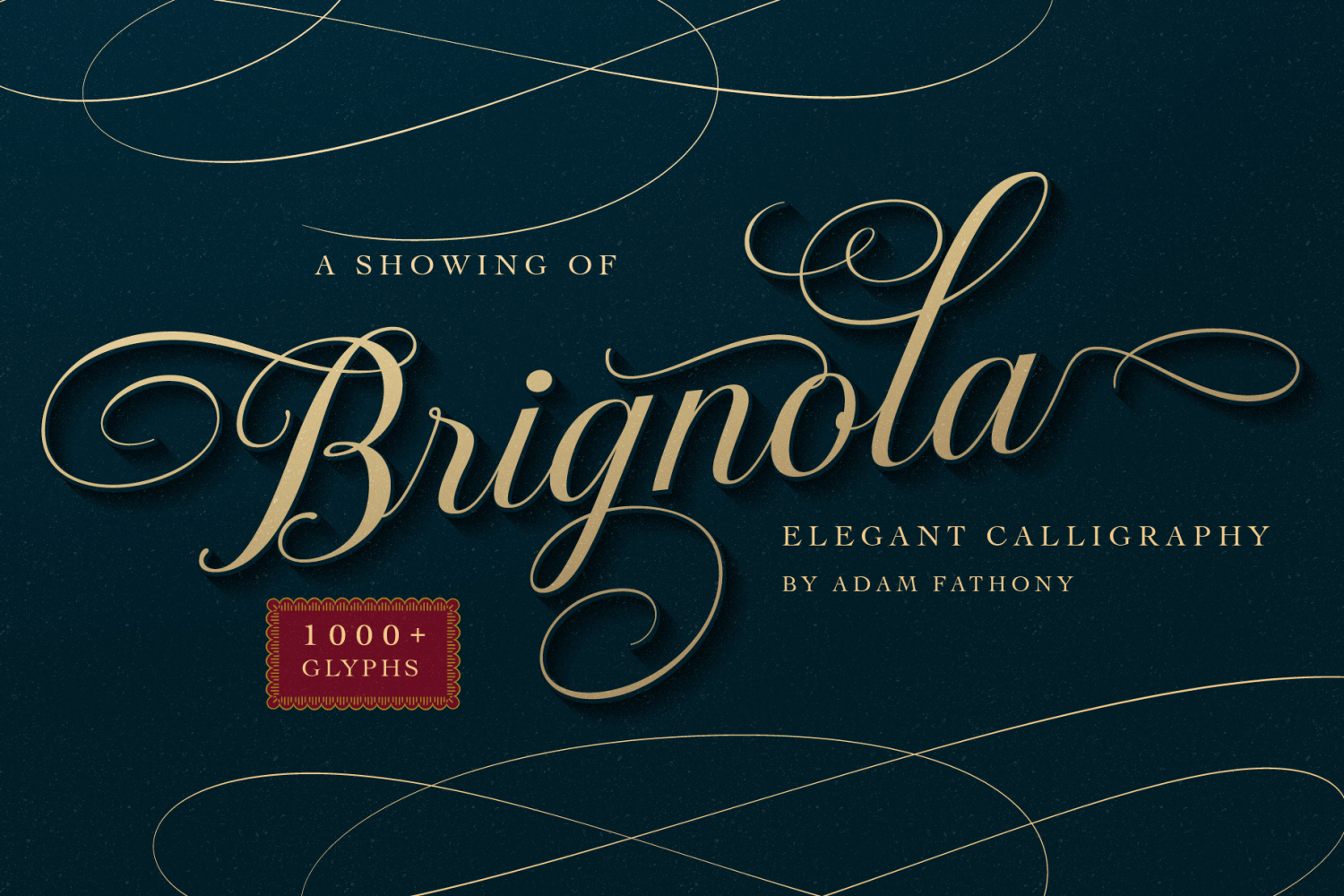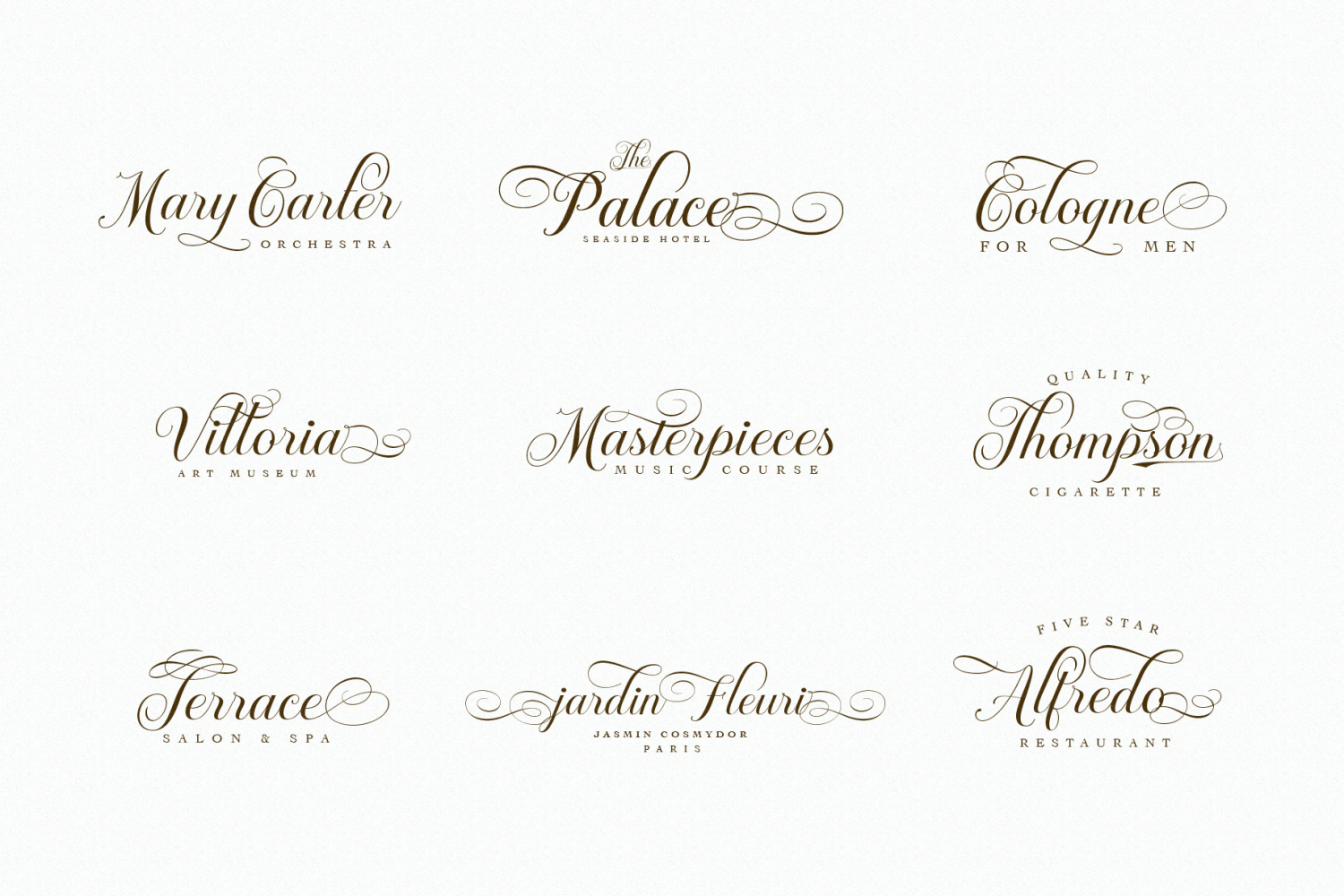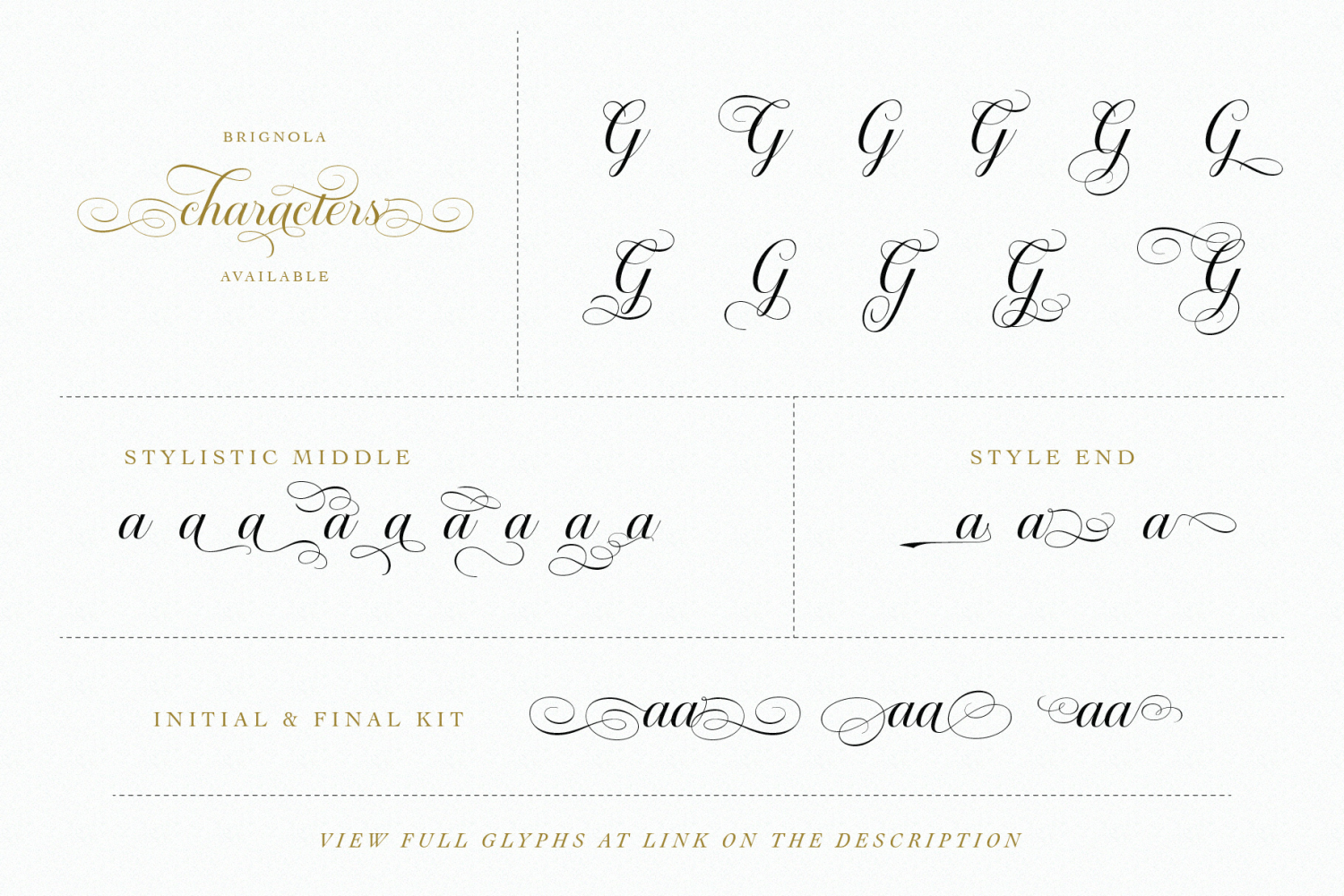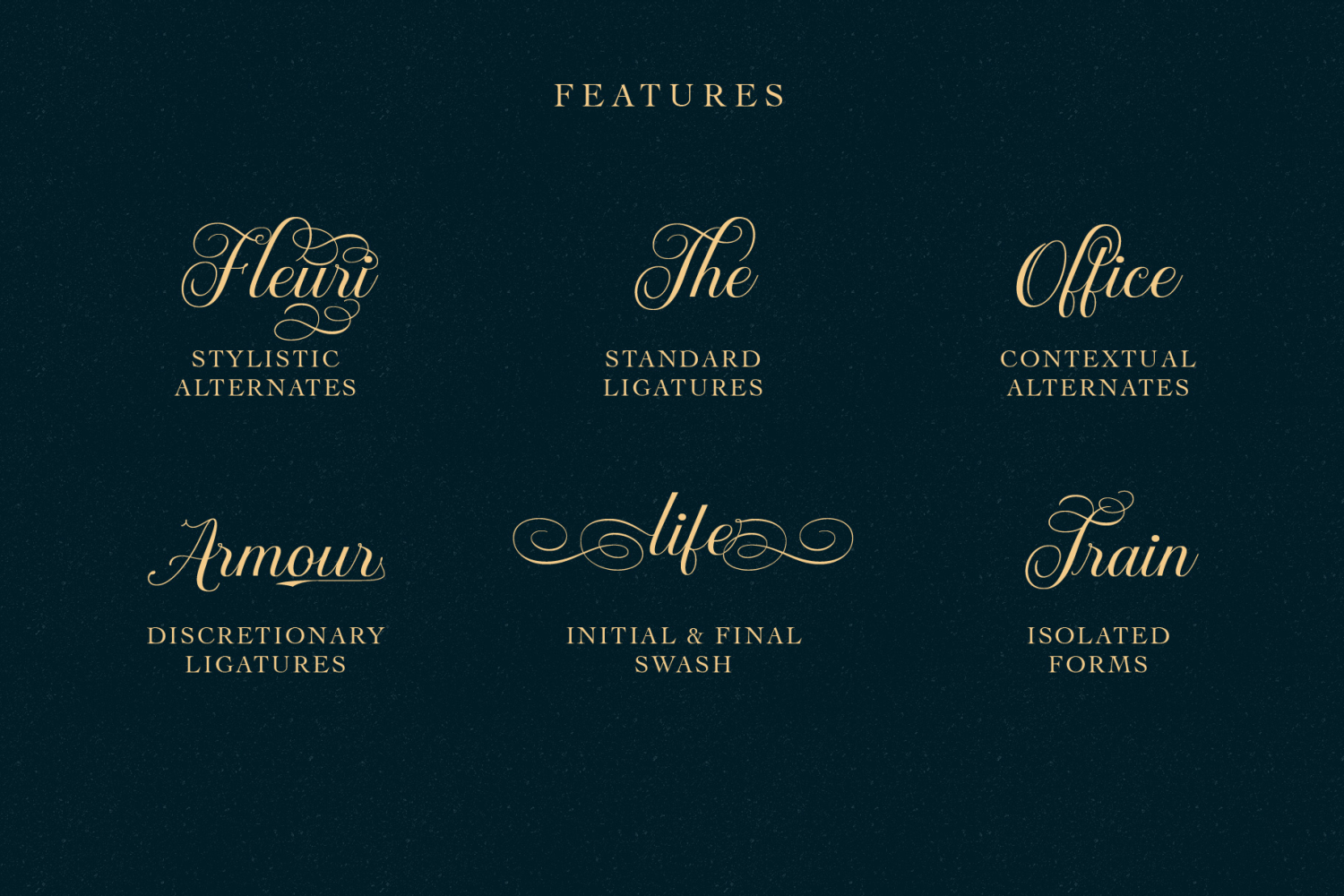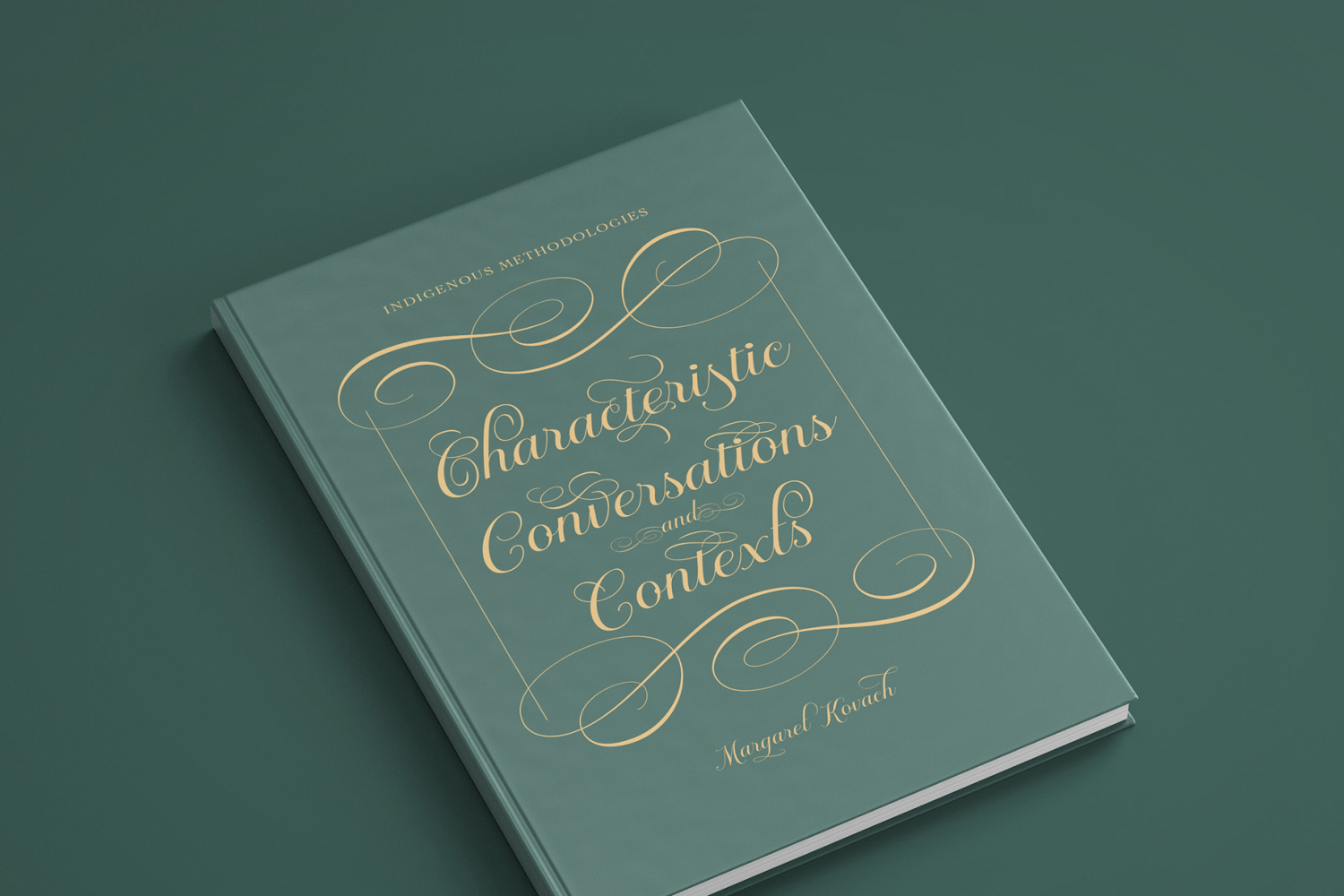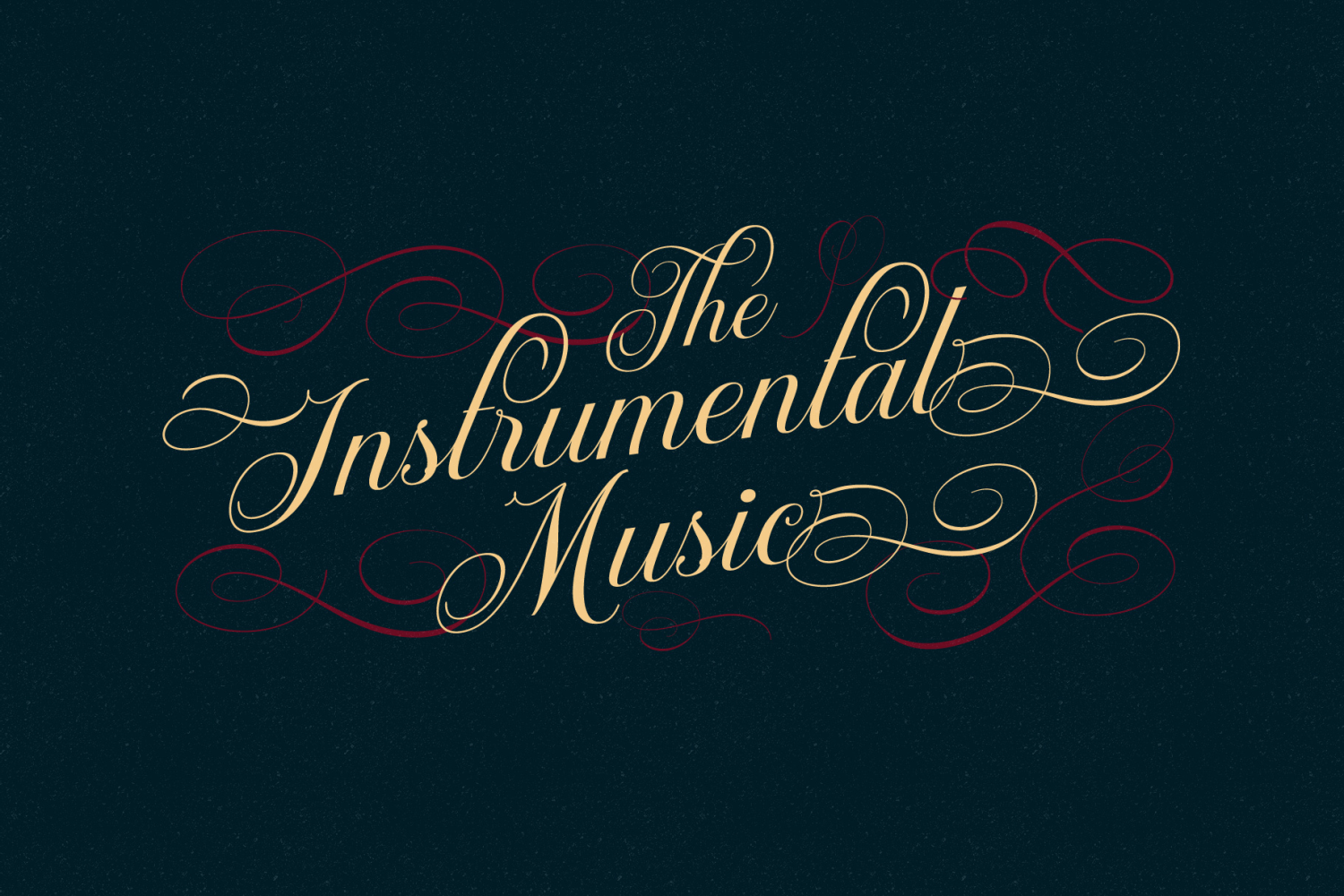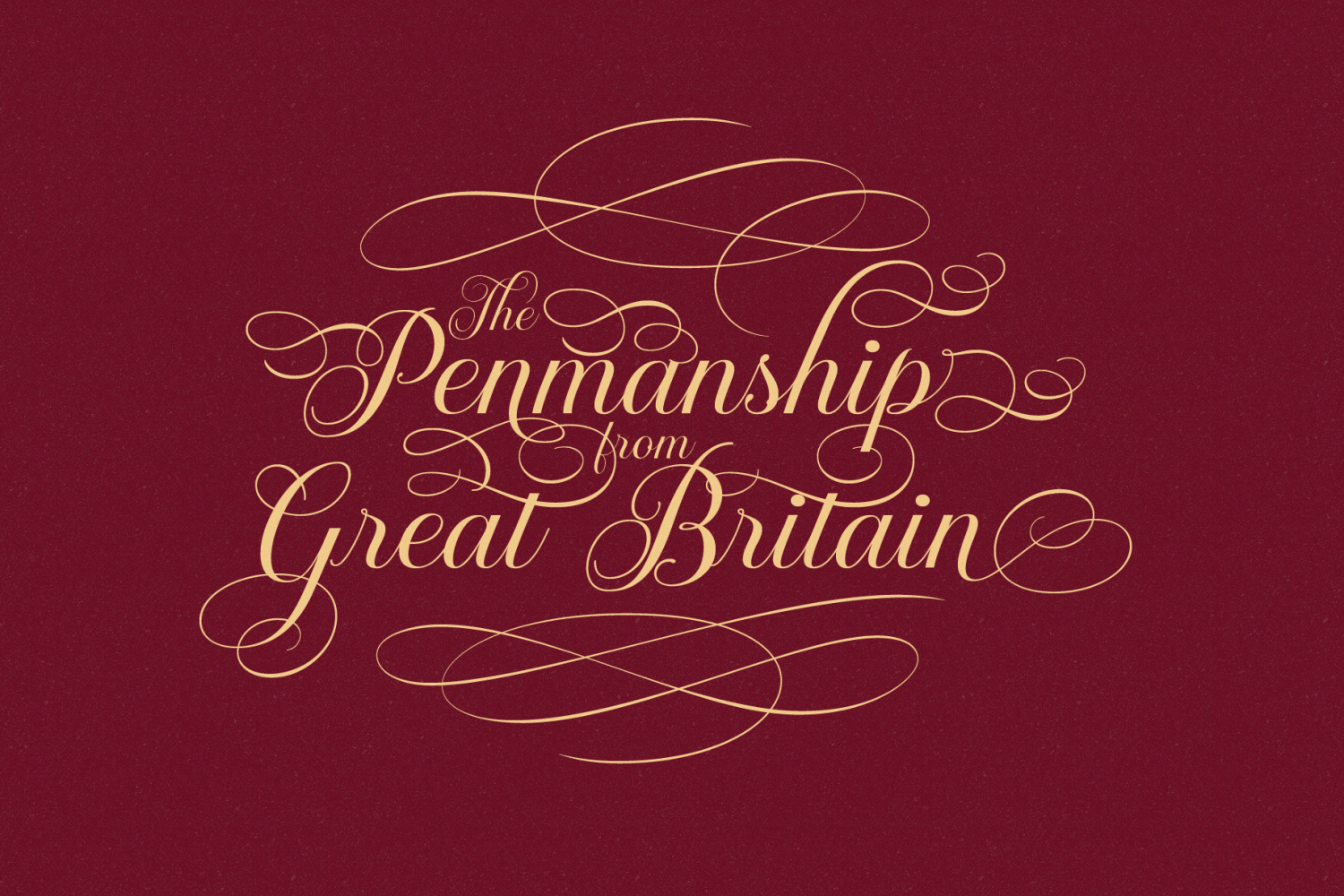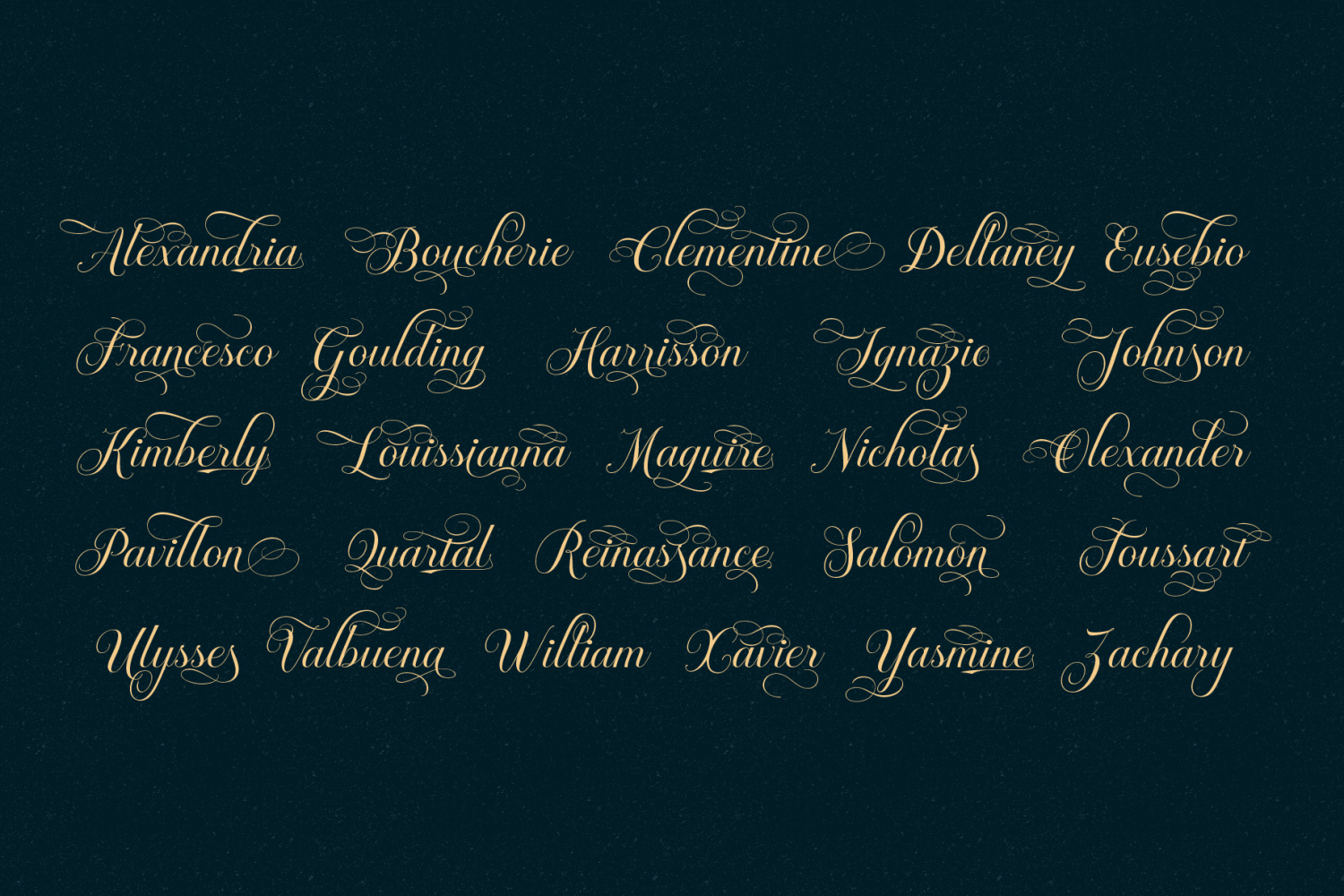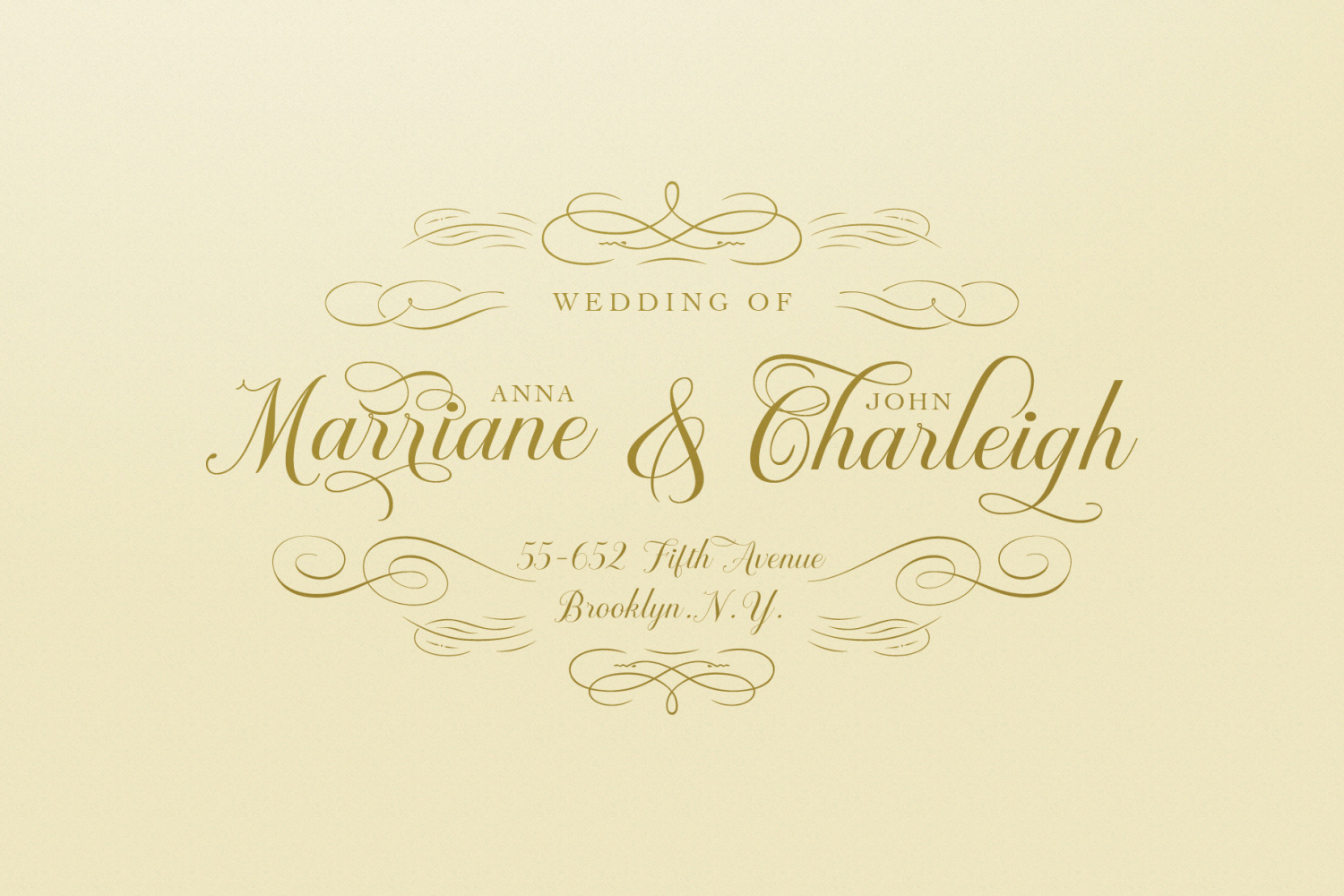
Brignola
Font Family by AF Studio
Reading some book of typography inspired me to creating an elegant font. Calligraphy in specific. And I think the calligraphy have an advantage for the alternate characters, It has a tons to explore in just one letter. My exploration of this fonts as not easy as my imagination, it took several trial and errors to find the perfect balance for this style.
Some of the letters have more alternate than others, it is fine because the limitations of the shape of the letters, it must stay readable and legible. Every letter that i've chose are only the best on it and fit with the character style.
In total, Brignola has more than 1000 Glyphs inside.
Best suited for : Wedding, Invitation, Christmas, Label, Logos, Covers, Poster, Etc.
Features included are previewed on the display, it contains :
- Contextual Alternates
- Stylistic Alternates
- Ligature
- Discretionary Ligatures
- Initial &Final Swash
- Isolated Forms